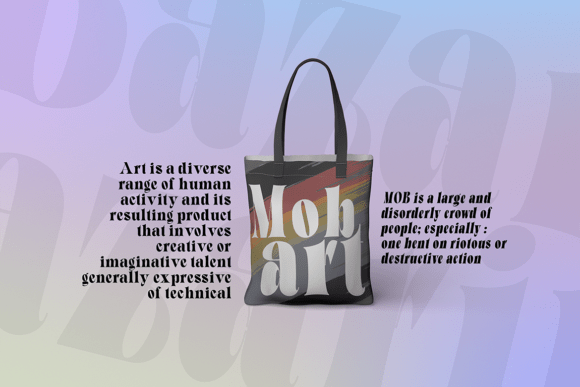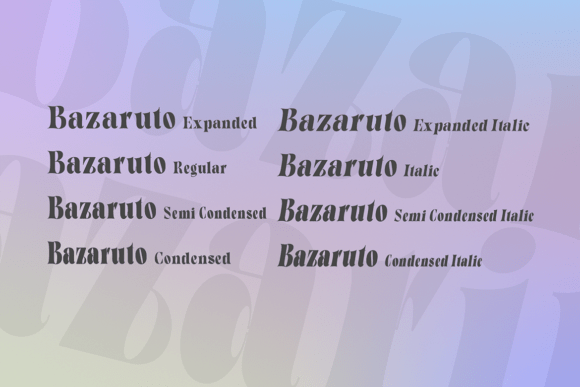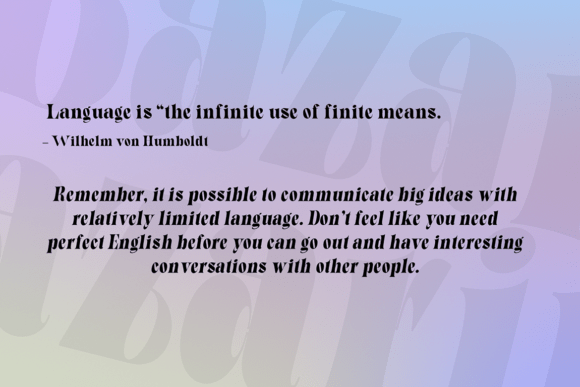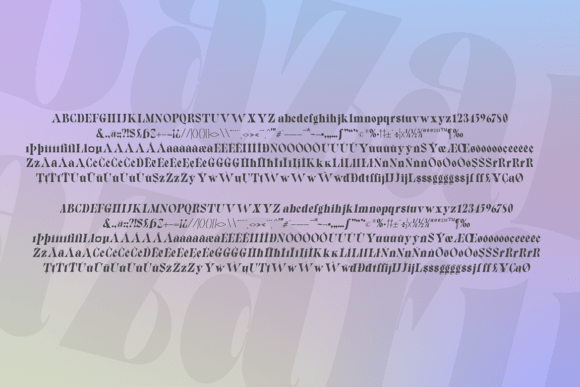
Introduction to Bazaruto Font
Have you ever stared at a blank canvas, waiting for the perfect font to bring your creative vision to life? That’s exactly what happened to me last week, when I was working on a design project and desperately searching for a font that would elevate my concept. After hours of browsing through design resources, I stumbled upon the Bazaruto Font – a game-changing serif font family that has since become my go-to choice for high-quality designs.
With its bold, high-contrast design and unique teardrop terminals, the Bazaruto Font is a true masterpiece that exudes retro-modern elegance. Its versatility makes it an exceptional choice for a wide range of creative projects, from editorial design to luxury logotypes, high-end lifestyle branding, and impactful magazine headers. Whether you’re working on a free download or a paid project, this font family is sure to make your design stand out.
As a valuable resource for designers, the Bazaruto Font offers 8 distinct styles, providing a wide range of weights and widths to suit any design need. Its transparent background and high-quality design make it a dream to work with, and its sophisticated aesthetic is sure to impress even the most discerning clients.
Key Features of Bazaruto Font
- Unique, modern font with a transparent background, perfect for minimalist designs
- Includes 1000+ glyphs, making it suitable for multilingual designs and creative projects
- Designed with a clean and elegant style, making it a great addition to any design resource collection
Honest Review: Bazaruto Font
I recently came across the Bazaruto Font, and I must say it’s a fantastic addition to any designer’s toolkit. As a design resource, it offers high-quality typography that’s perfect for a creative project.
One of the things that stands out about Bazaruto Font is its unique style and versatility. The font is available for free download, which is a huge plus for designers on a budget.
- ✨ Unique style and versatility make it perfect for a wide range of creative projects
- ✨ High-quality typography that’s perfect for design projects
One of the limitations of Bazaruto Font is that it only comes with a transparent background, which may not be ideal for designers who prefer a solid background. Additionally, the font may not be suitable for projects that require a lot of bold or heavy typography.
- ⚠️ Only comes with a transparent background
- ⚠️ May not be suitable for projects that require bold or heavy typography
Overall, I’m really impressed with the Bazaruto Font. It’s a great choice for designers who are looking for a high-quality, versatile font that’s perfect for a wide range of creative projects.
Use the Bazaruto Font to create visually appealing text overlays and design elements.
Combine the font with other design resources for a unique and creative look.
The Bazaruto Font is ideal for:
Branding and marketing materials.
Graphic design projects.
Web design projects.